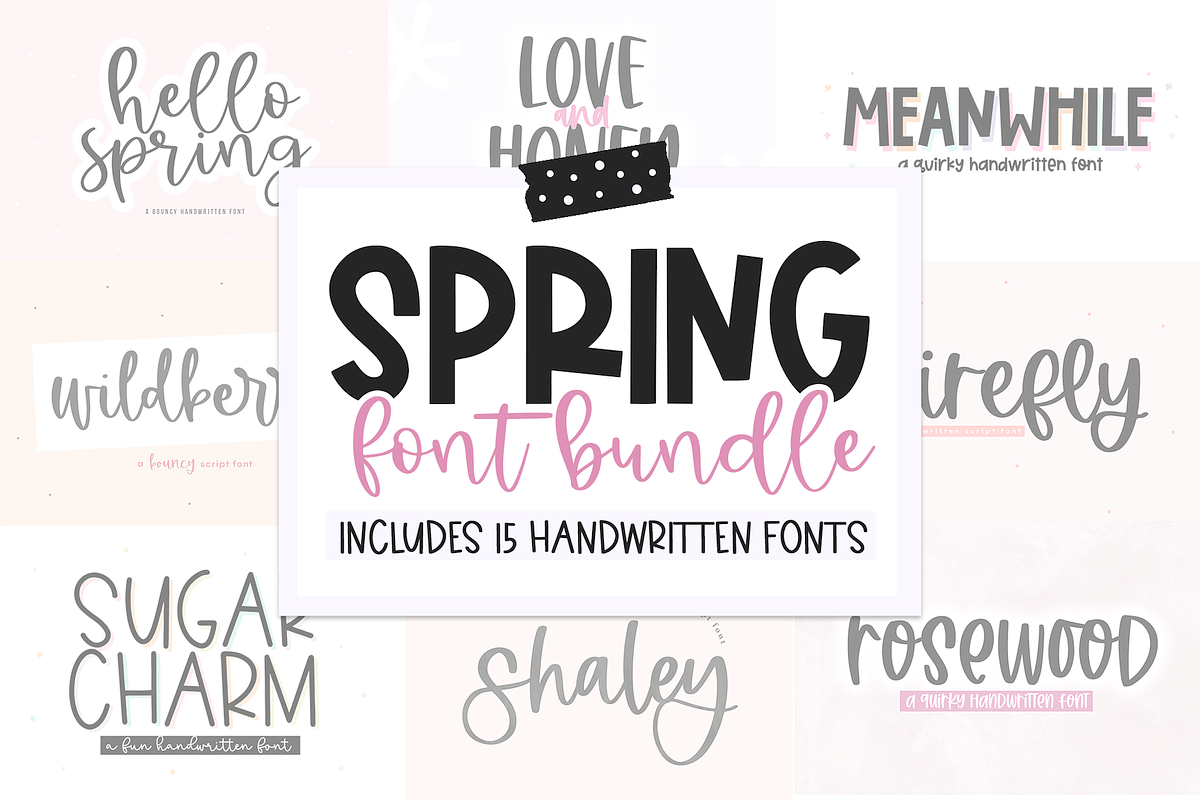
Spring Handwritten Font Bundle Free Download
Spring Handwritten Font Bundle Free Download is a delightful collection of handwritten fonts that bring a fresh, organic, and cheerful vibe to any design. Perfect for spring-themed projects, DIY crafts, wedding stationery, social media posts, or anything that needs a personal touch, this bundle is bursting with charm and personality. Each font is lovingly crafted to mimic natural handwriting styles—from playful and bouncy to soft and elegant.
The Spring Handwritten Font Bundle Free Download includes a versatile mix of script and print fonts that work beautifully on their own or paired together. Whether you're designing quote graphics, logos, planner pages, or invitations, this bundle gives you all the tools to express warmth and creativity in your typography.